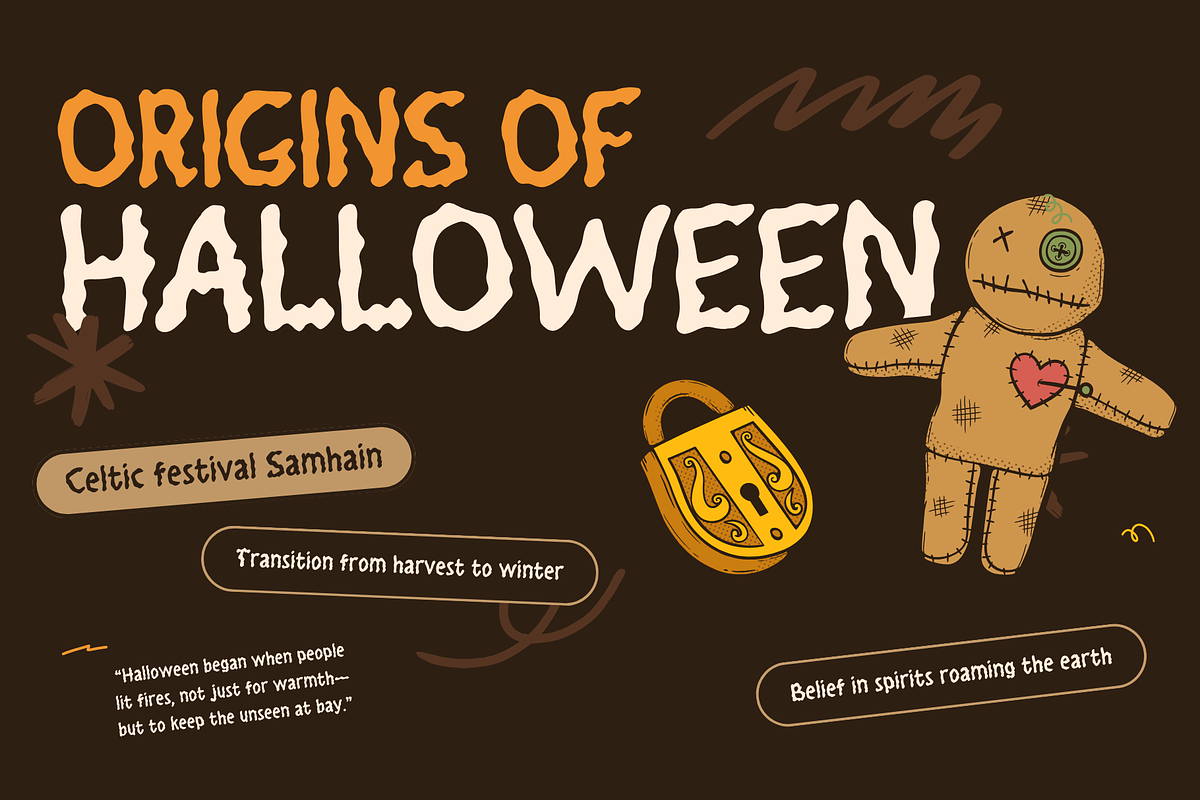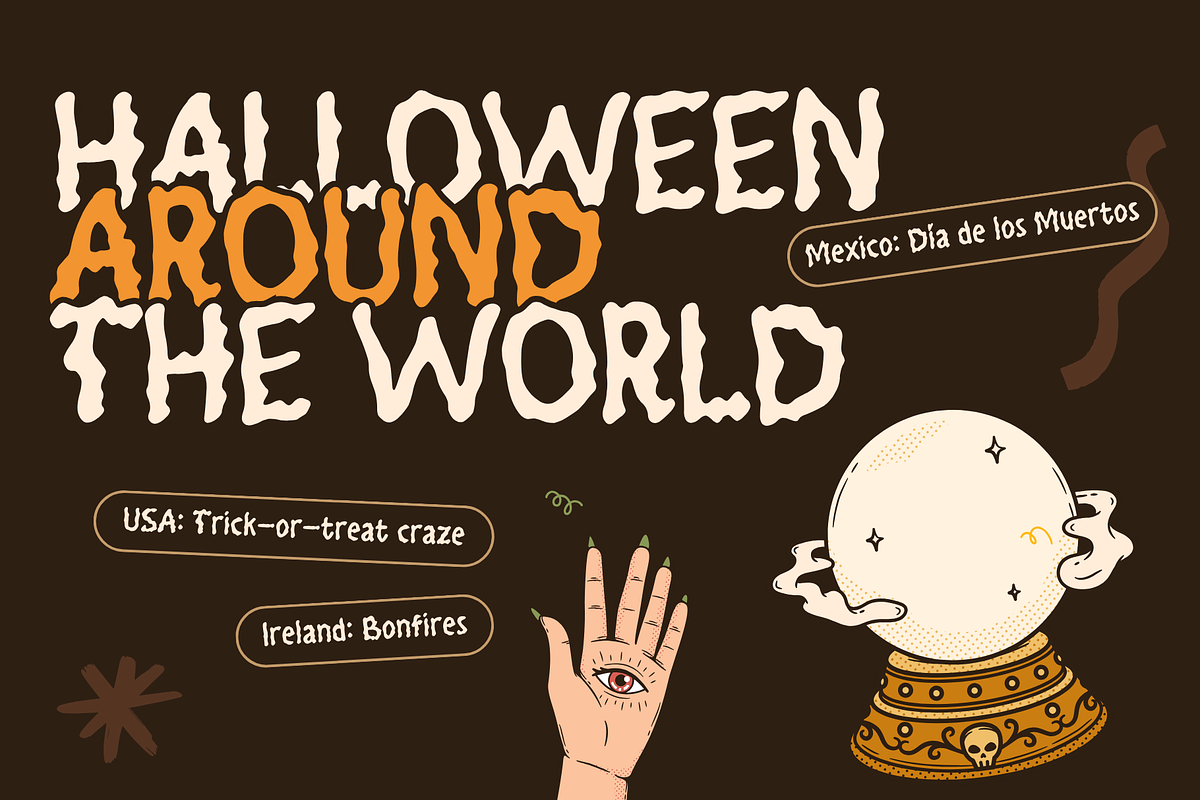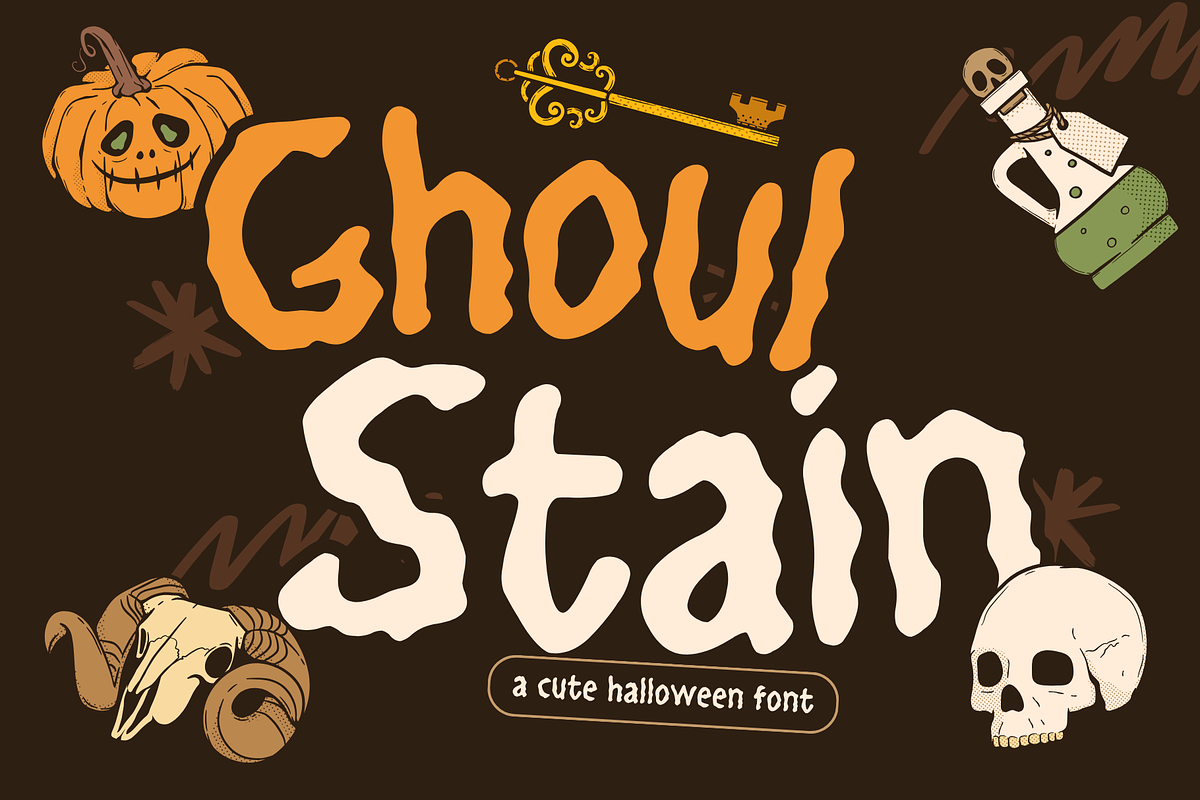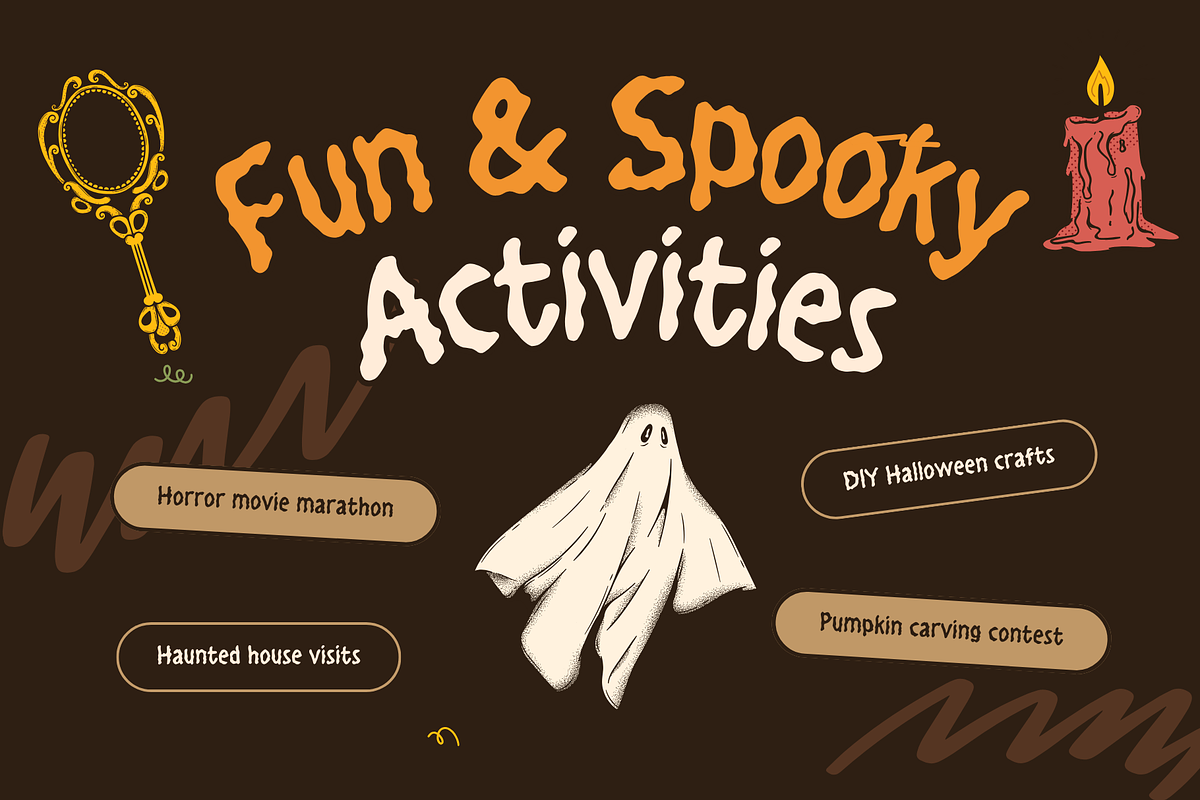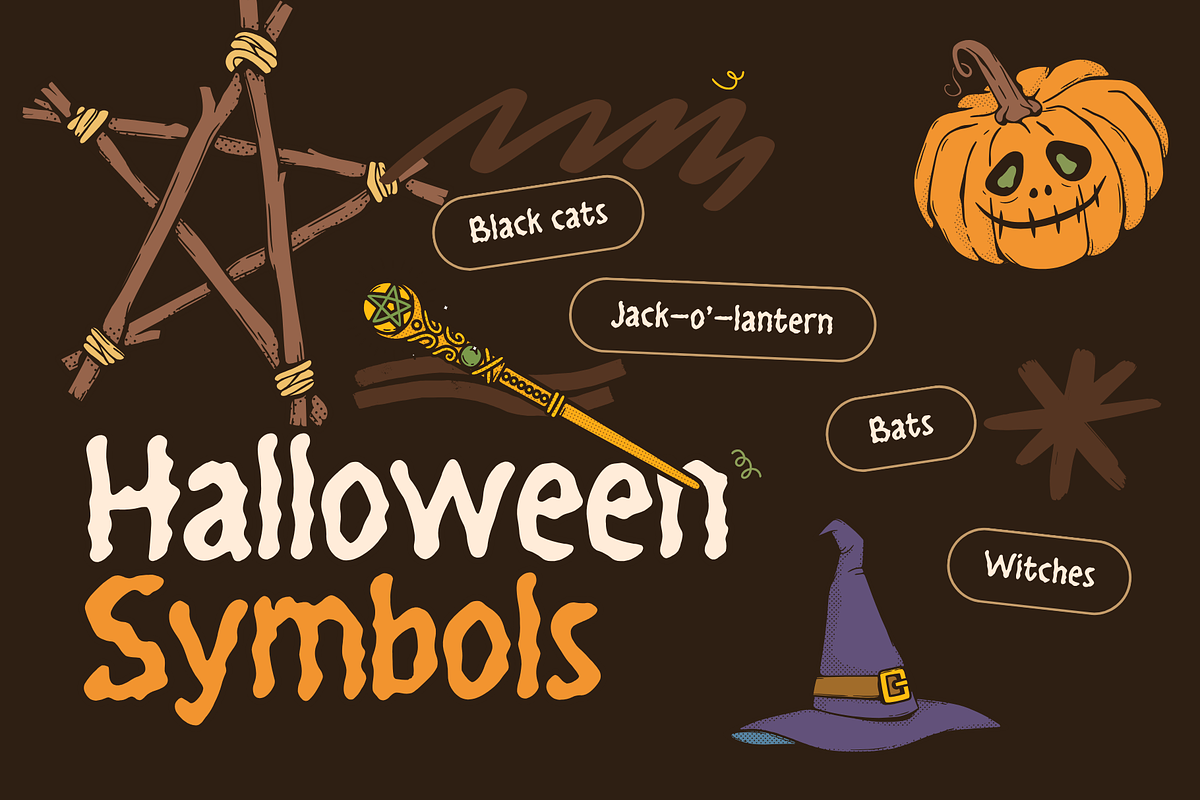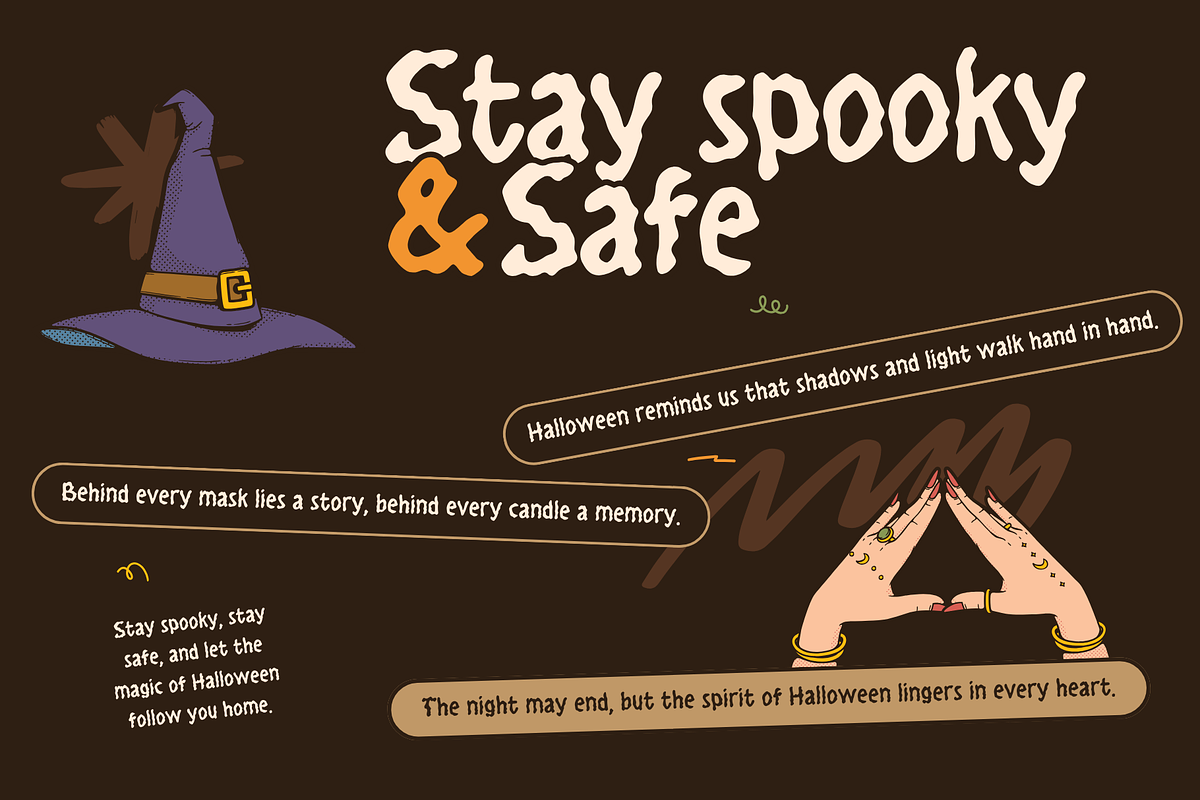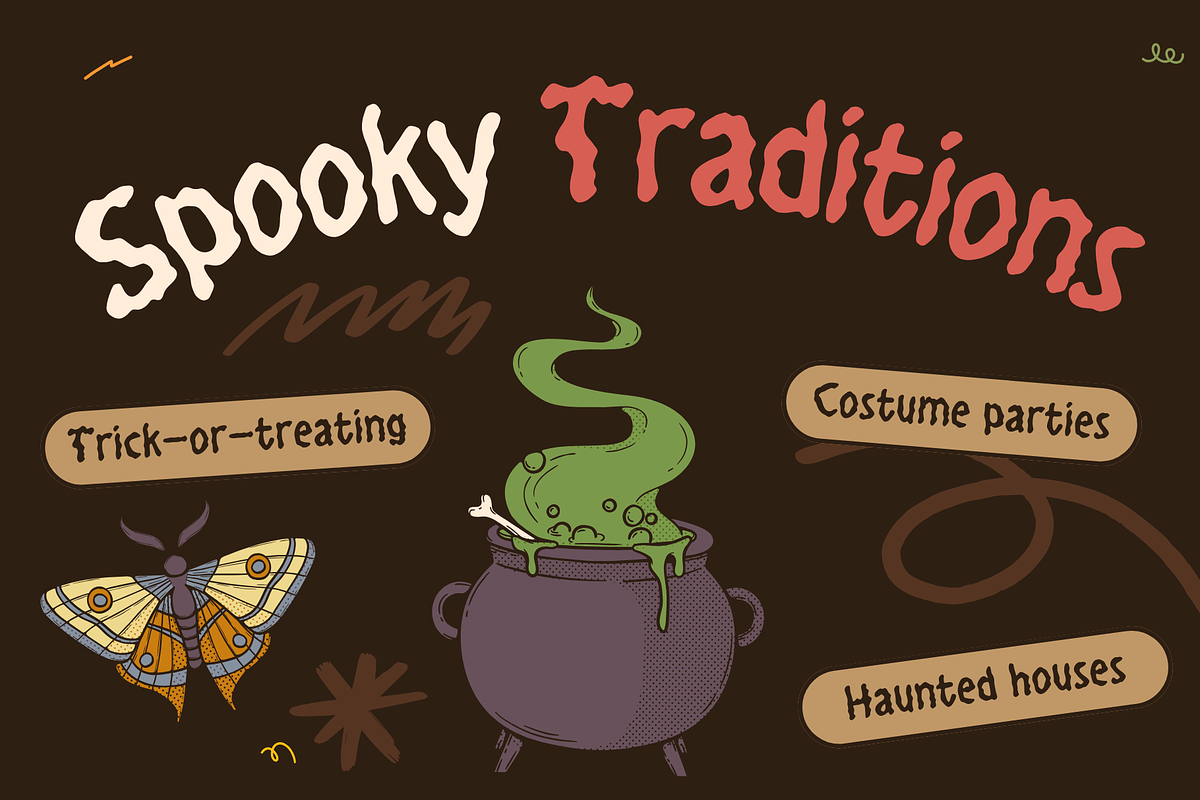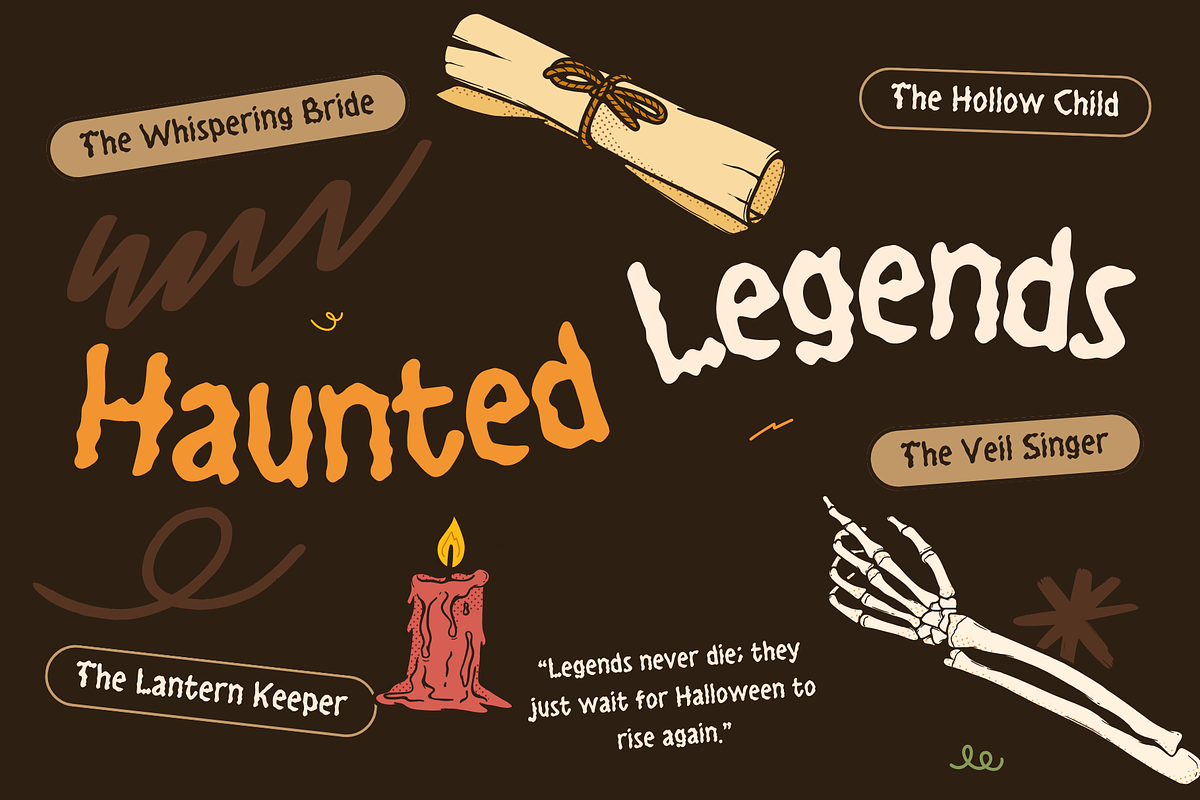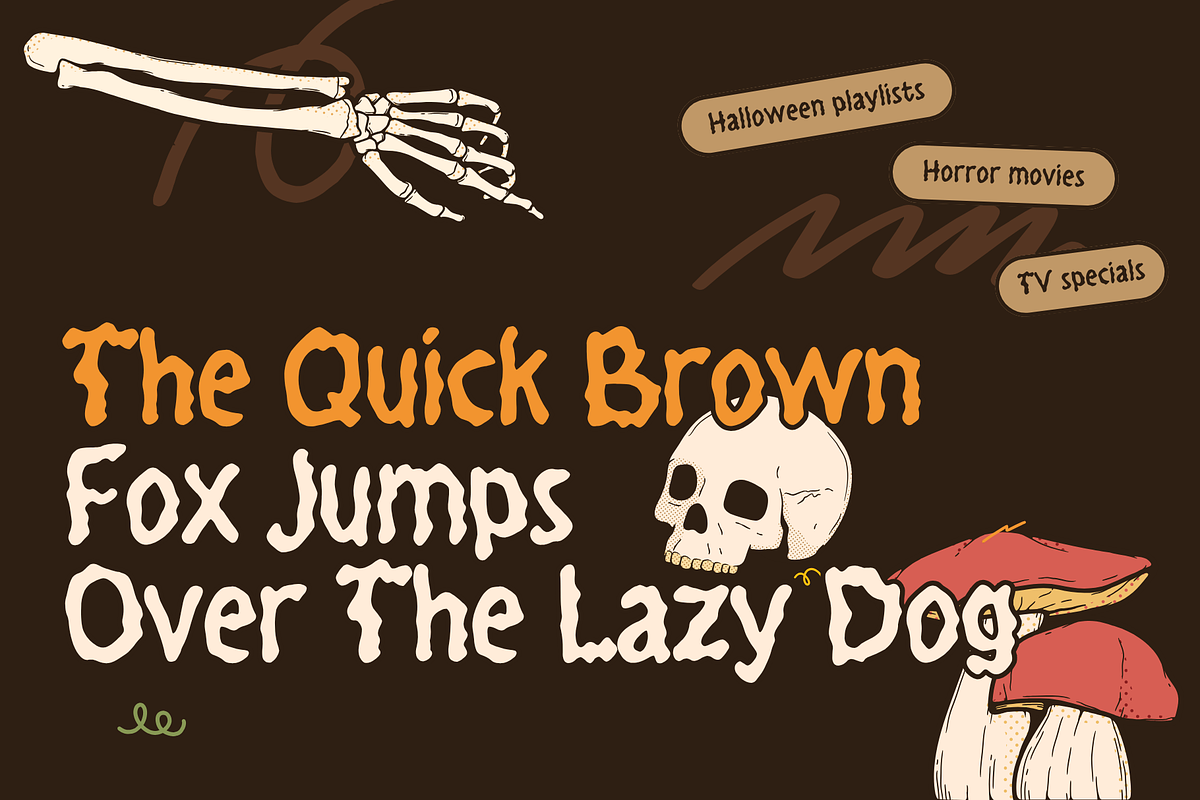
Ghoul Stain – Organic Horror Font
Ghoul Stain – Organic Horror Font for Halloween, Thriller, Supernatural & Spooky Designs
Ghoul Stain is an organic horror font with wavy, uneven, and hand-drawn letterforms that look like rotting flesh, ghostly scratches, or monster writing. It has a creepy yet playful vibe—perfect for designs that need a mysterious, eerie, and unsettling atmosphere without being too aggressive.
This font works perfectly for Halloween posters, horror movie titles, ghost stories, supernatural games, dark logos, thriller book covers, spooky merchandise, and creepy social media content.
Why Choose Ghoul Stain?
- Organic & wavy horror style
- Looks like zombie/ghost handwriting
- Great for spooky titles & headlines
- Works for print and digital projects
- Instantly adds eerie atmosphere with no extra edits
- Halloween Posters & Party Flyers
- Horror / Mystery Movie Titles
- Ghost & Supernatural Games
- Thriller / Dark Fantasy Book Covers
- Spooky Logos & Branding
- Horror T-Shirts & Merchandise
Creepy YouTube Thumbnails / Social Media Posts
👻 Want a horror font that feels alive, spooky, and full of personality—without being too extreme? Ghoul Stain is the perfect choice!